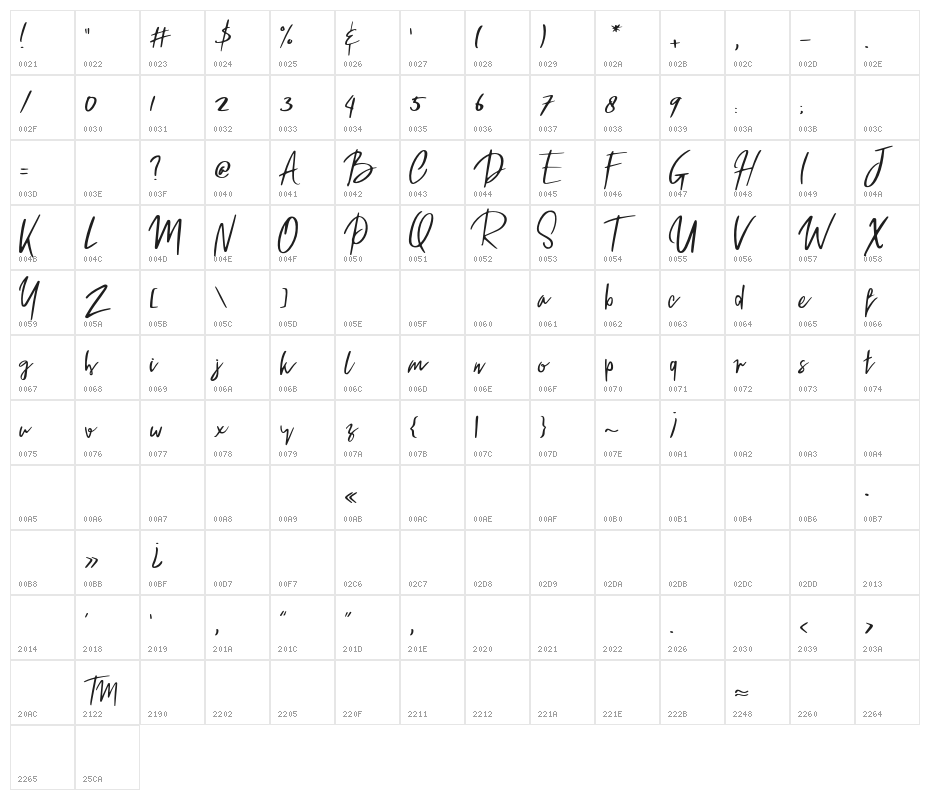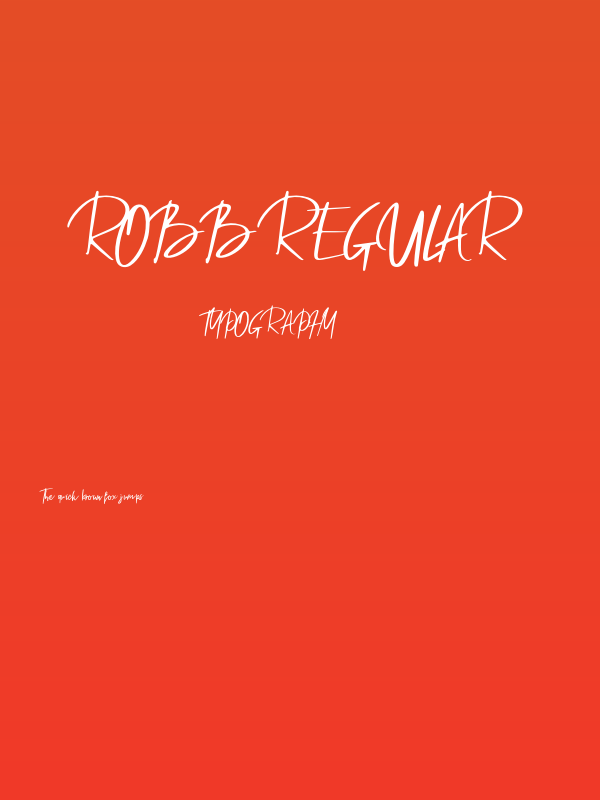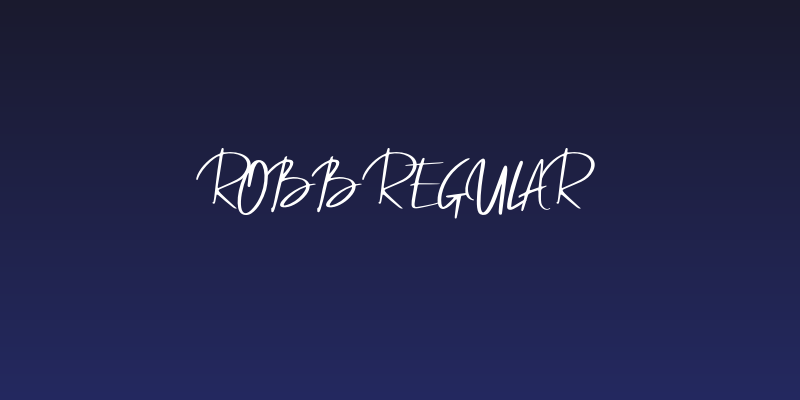
Robb Regular Font
Robb Regular Description
This font exudes a dynamic and energetic vibe with its handwritten style. The letters are crafted with a casual flair, featuring fluid strokes that vary in thickness, giving it a lively and spontaneous appearance. The uppercase letters are bold and slightly slanted, while the lowercase letters maintain a consistent flow, adding to the overall cohesiveness. The numerals and special characters are designed to match the playful yet sophisticated style, making it versatile for various design needs. Its unique character spacing and stroke contrast make it stand out, perfect for projects that require a personal touch.
Overall StyleModern, Decorative
Use CaseLogos, Headlines, Invitations
Proposed ProjectsIdeal for branding, invitations, social media graphics, and creative projects that require a personal touch.